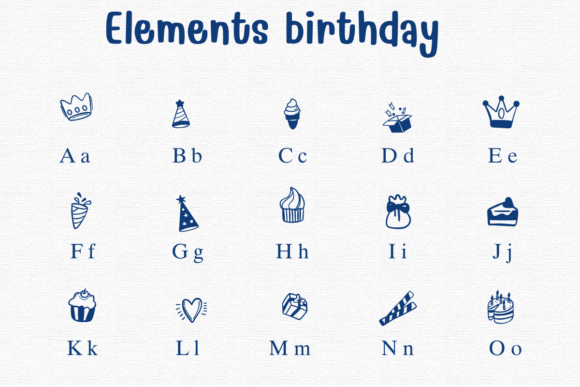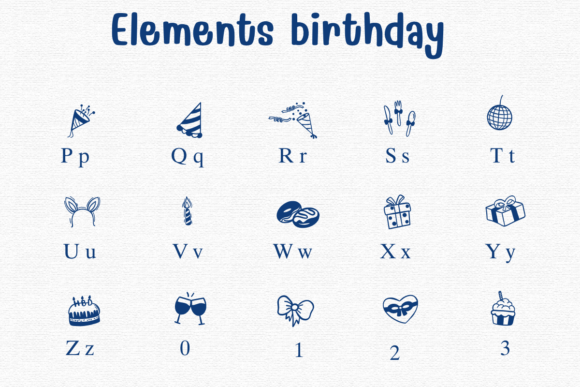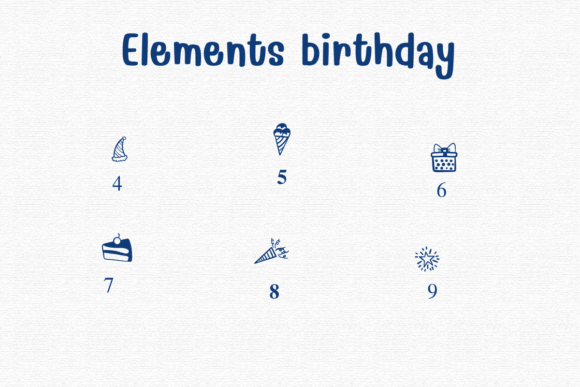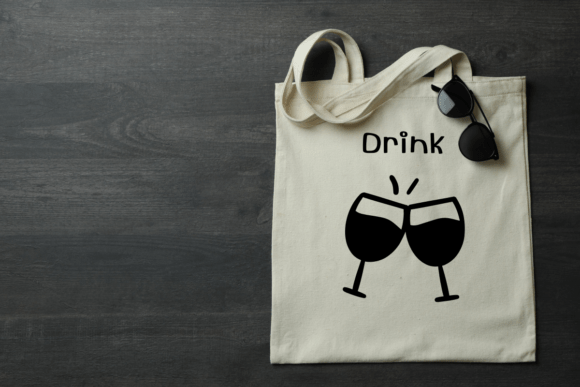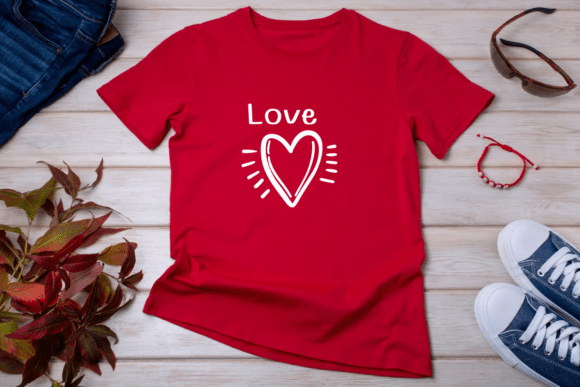
Introducing Elements Birthday Font: The Ultimate Party Companion for Designers and Crafters
Are you tired of using the same old fonts for your birthday announcements, invitations, and decorations? Look no further! Elements Birthday Dingbats Font is here to revolutionize the way you create party-themed designs. This joyful set of icons is drawn in a fun, playful doodle style that’s sure to bring a smile to anyone’s face.
What’s Included in Elements Birthday Font?
Elements Birthday Dingbats Font is a comprehensive set of festive elements that are perfect for creating dynamic birthday announcements, invitations, banners, and decorations. The set includes a wide range of party-themed icons, such as:
- Party hats in various shapes and sizes
- Confetti and balloons to add a pop of color to your designs
- Cakes and cupcakes with candles and frosting
- Gifts and presents with bows and ribbons
- Crowns and tiaras for the birthday royalty
- Champagne glasses and bottles for a celebratory touch
With Elements Birthday Font, you can easily add these fun and festive elements to your designs with just a simple keystroke. This font is perfect for event planners, card makers, and anyone who loves to celebrate!
Benefits of Using Elements Birthday Font
So, why should you choose Elements Birthday Font for your party-themed designs? Here are just a few benefits:
- Ease of use: With Elements Birthday Font, you can easily add party-themed elements to your designs without having to search for and insert individual images.
- Customization: The font is fully customizable, allowing you to adjust the size, color, and style to fit your design needs.
- Time-saving: With a vast library of pre-made elements, you can create professional-looking designs in no time.
- Fun and playful: The doodle-style illustrations are sure to bring a smile to anyone’s face, making your designs stand out from the crowd.
Ideas for Using Elements Birthday Font
The possibilities are endless with Elements Birthday Font! Here are a few ideas to get you started:
- Create custom birthday invitations and announcements.
- Design eye-catching party banners and decorations.
- Make personalized birthday cards and gifts.
- Develop a social media campaign for a birthday party or event.
- Design custom party favors and treats.
Elements Birthday Dingbats Font is the perfect addition to any designer’s or crafter’s toolkit. With its fun and playful doodle-style illustrations, this font makes it easy to create dynamic birthday announcements, invitations, banners, and decorations. Whether you’re an event planner, card maker, or just someone who loves to celebrate, Elements Birthday Font is sure to bring a smile to your face and make your designs stand out from the crowd.